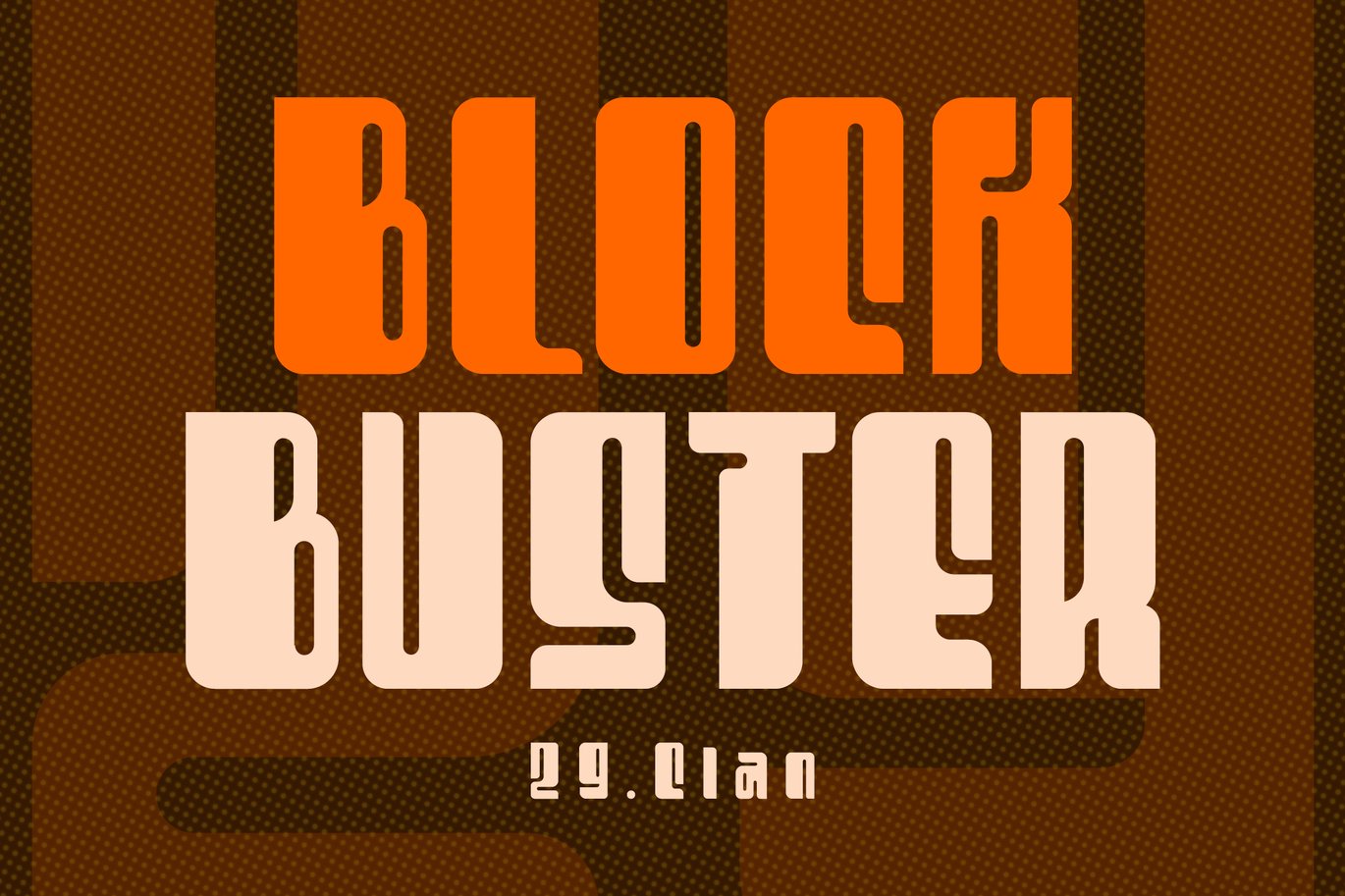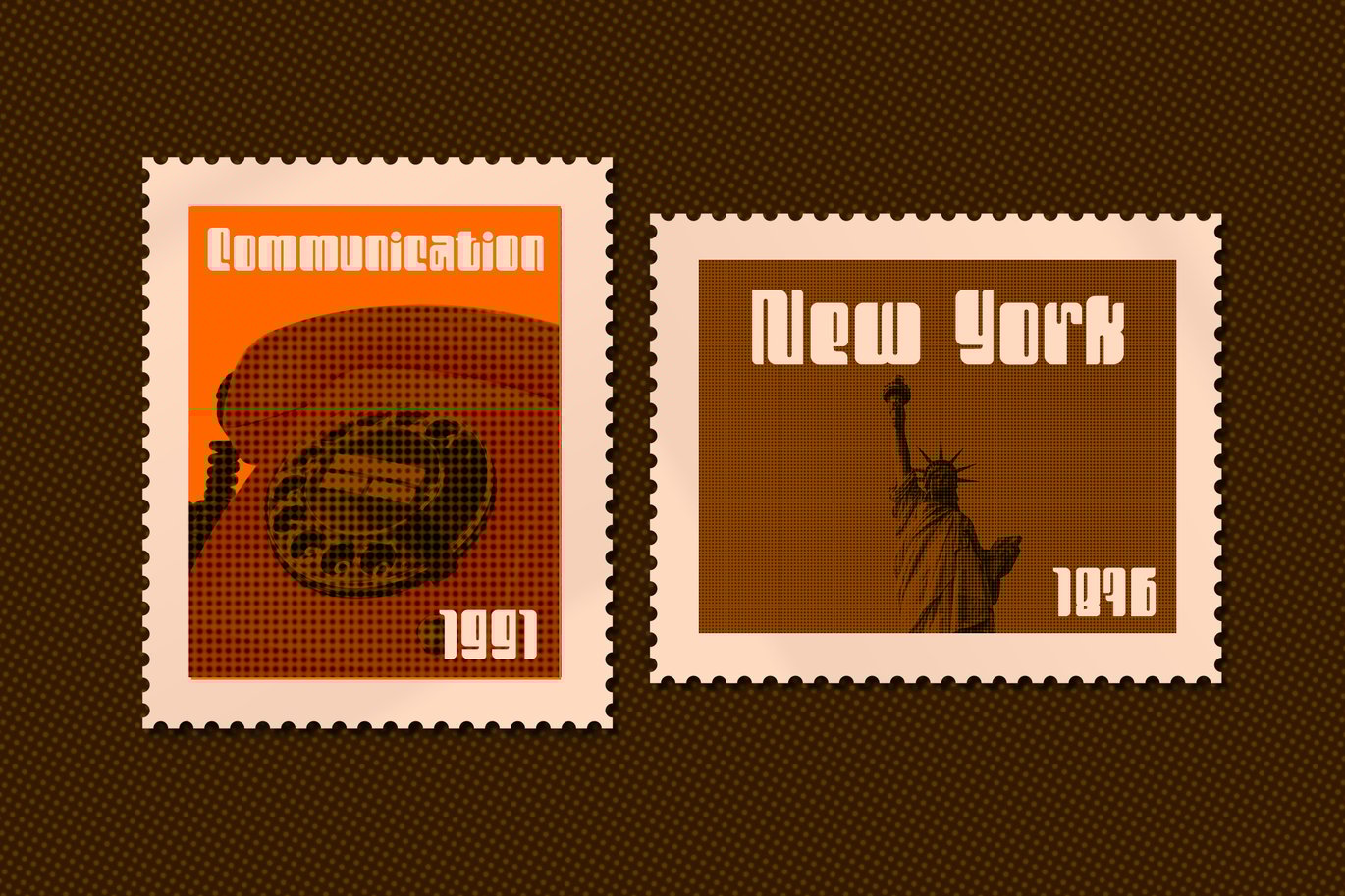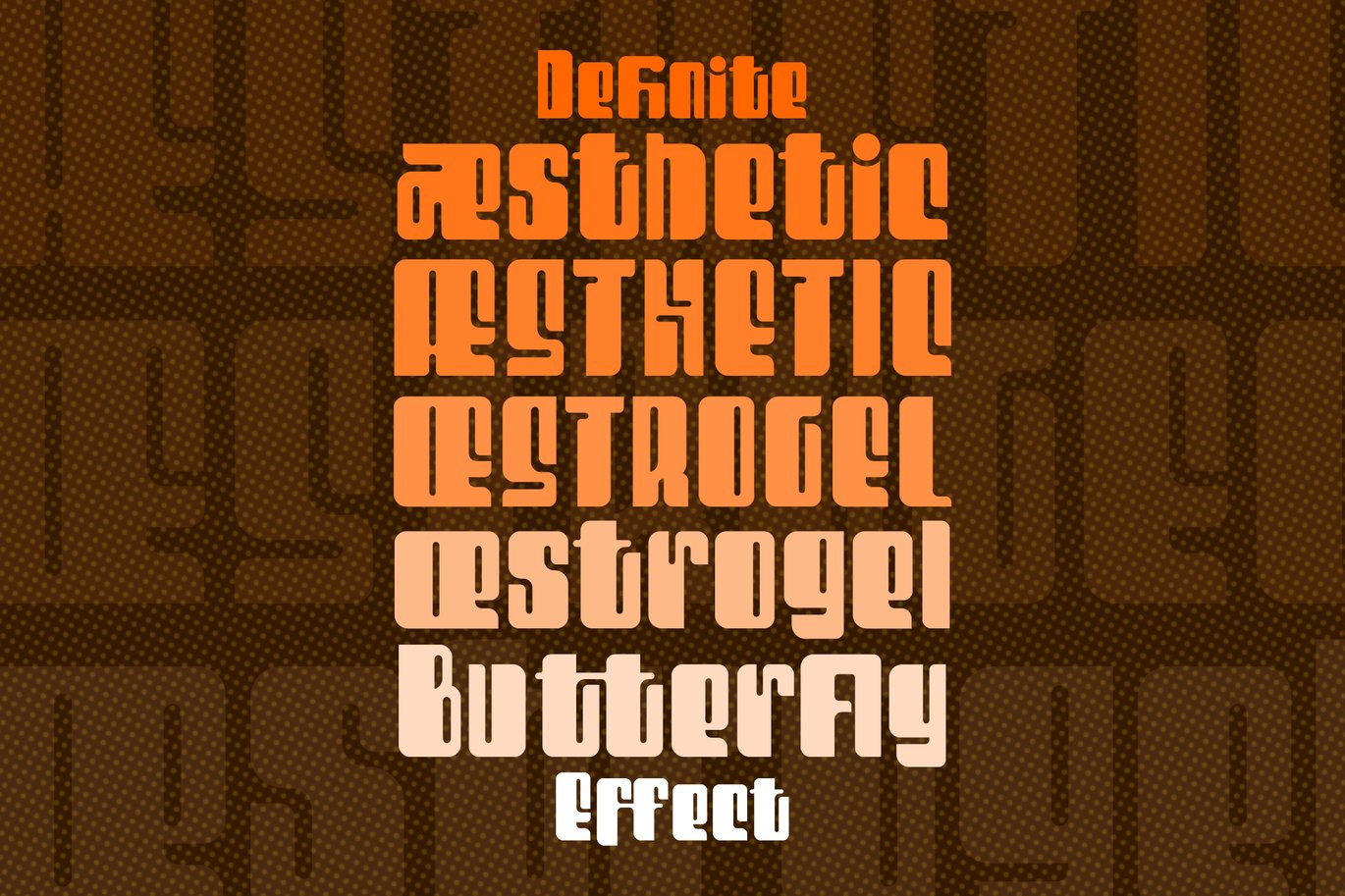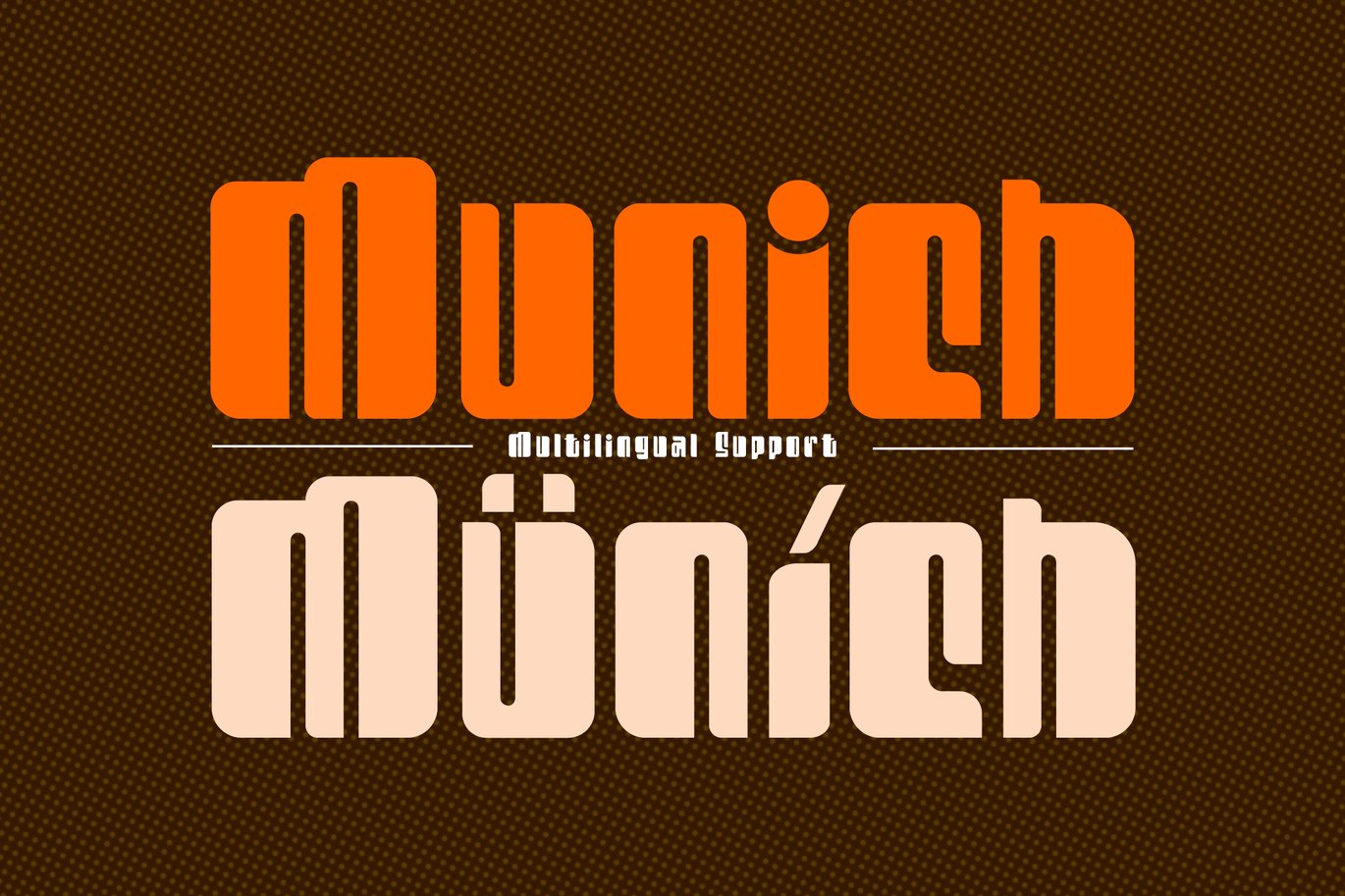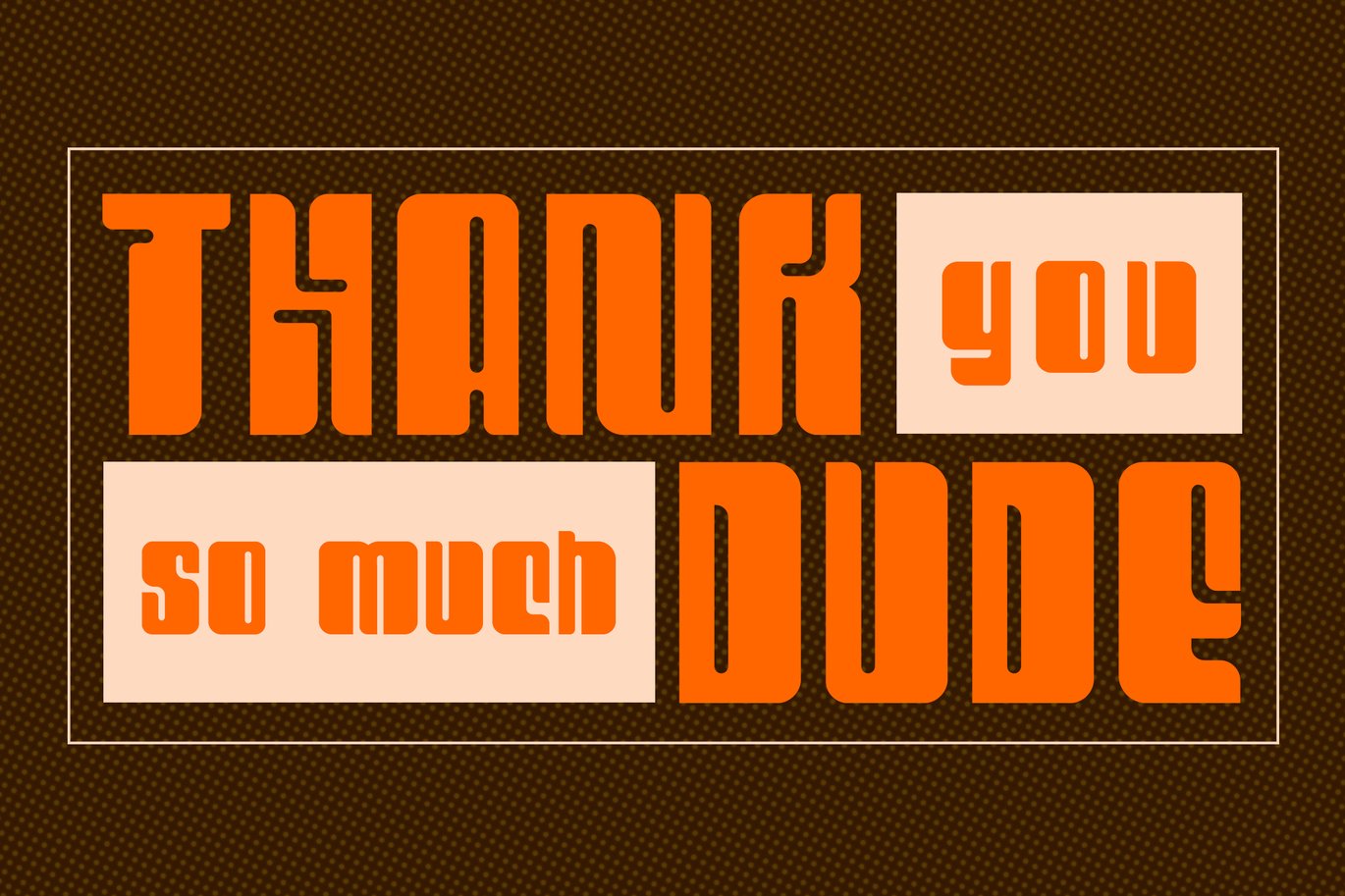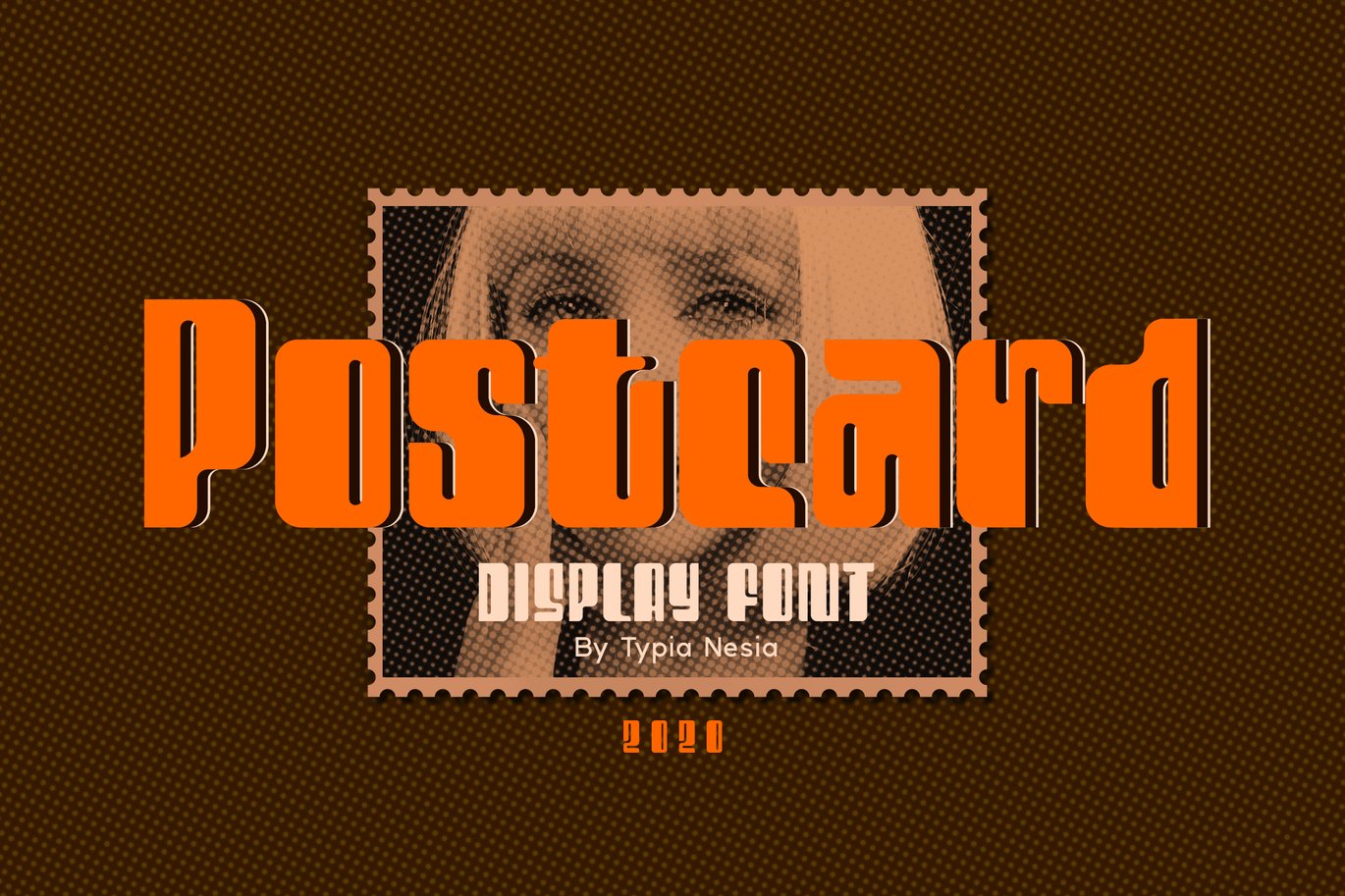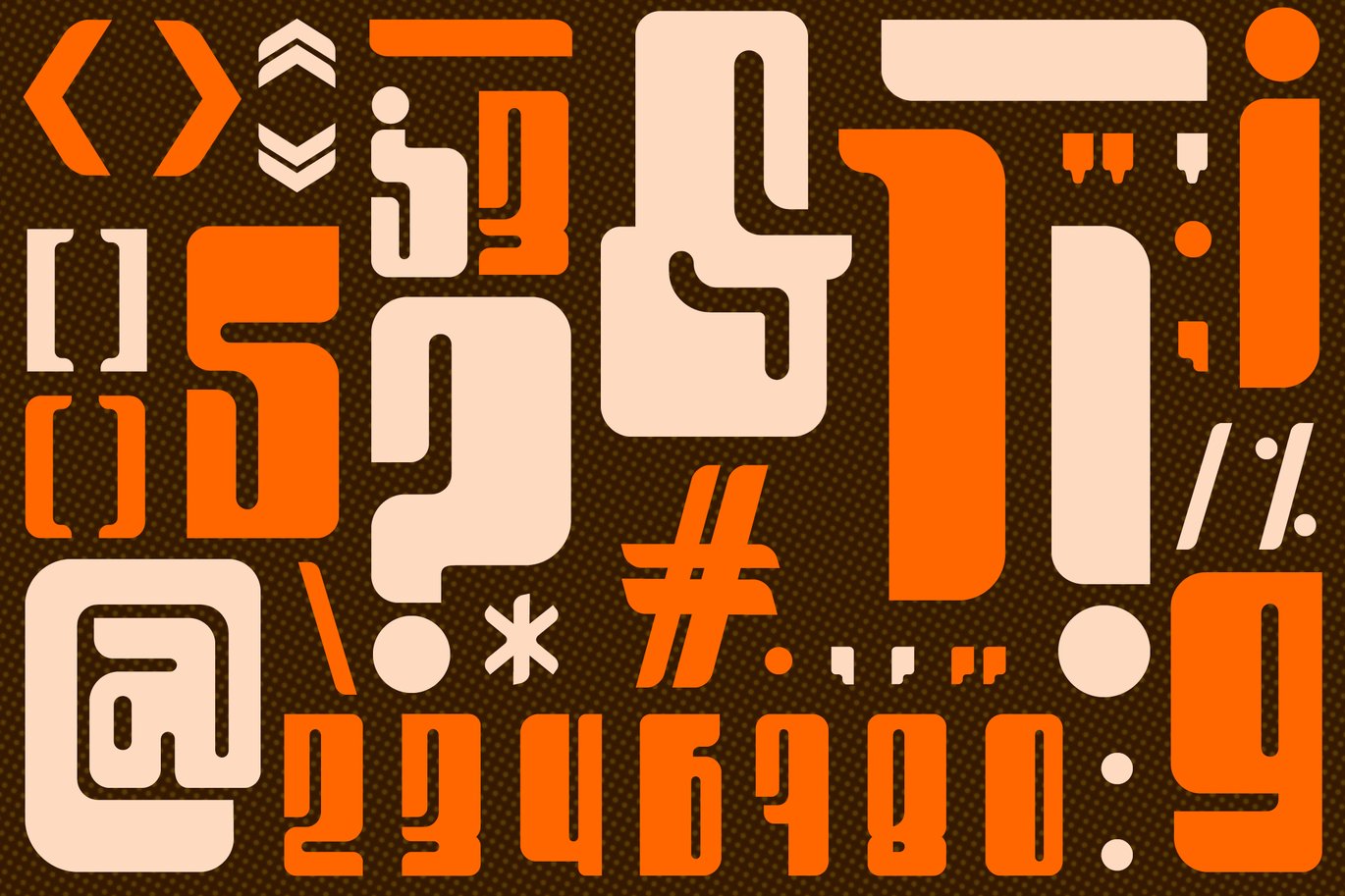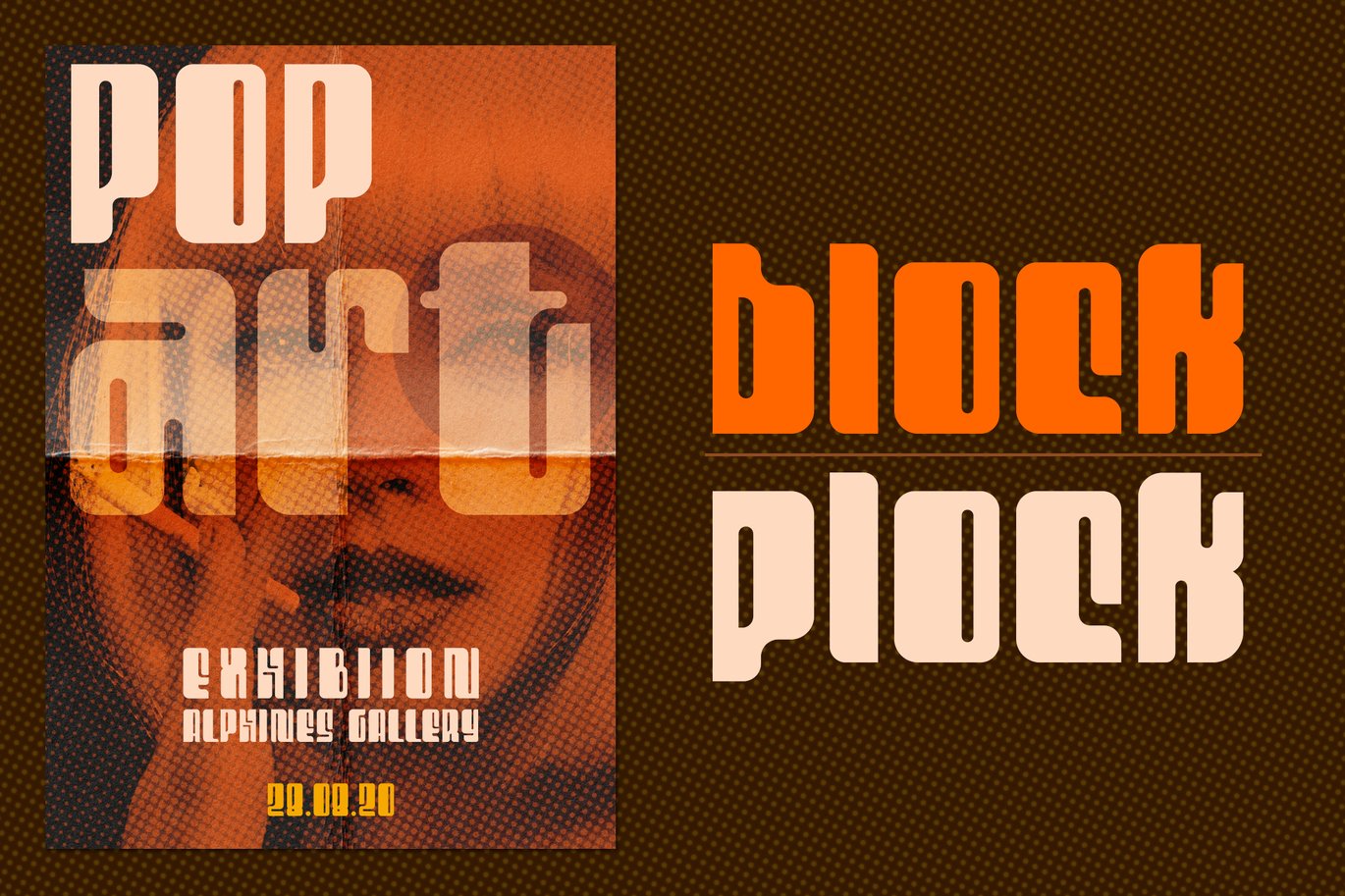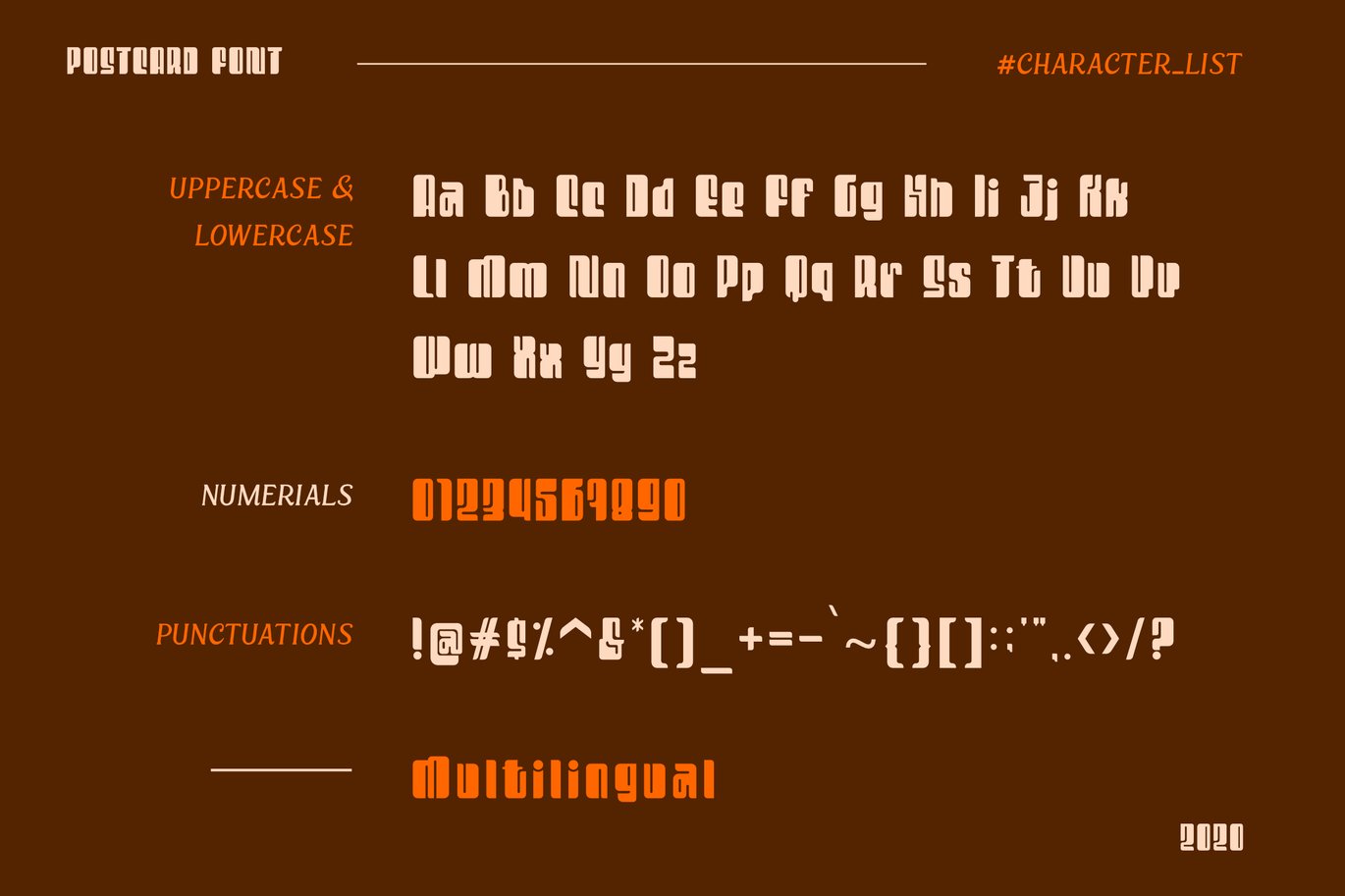
Postcard Display Font
Postcard – Retro Fancy Display Font
Postcard is perfect for your up coming projects. Such as logo branding, editorial design, stationery design, blog design, modern advertising design, card invitation, art quote, home decor, book/cover title, special events ( birthday, etc ), and any more.